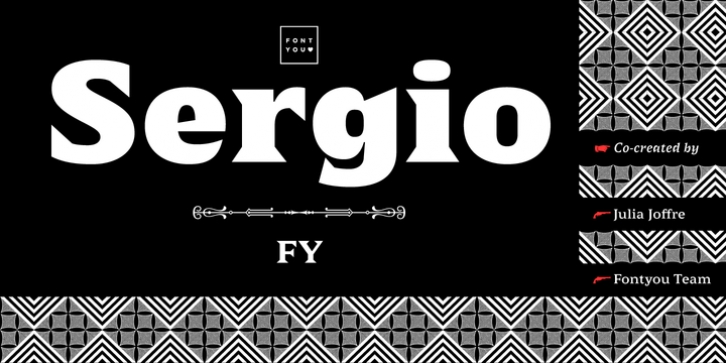
Sergio FY is characterized by its large, sharp, and triangular serifs, which give it a very singular look. With its complete character set including small caps, oldstyle figures and discretionary ligatures (amongst others), Sergio FY comes with 3 weights and italics, as well as an amazing set of ornaments. Its large width, its short ascendants and descendants allow it to perfectly fit in small size. It will also show all its originality in big sizes for headlines or posters (absolutely fabulous in its black version). Both robust and elegant, spiky and friendly, oldschool and contemporary… Sergio FY is for sure the next celebritype!